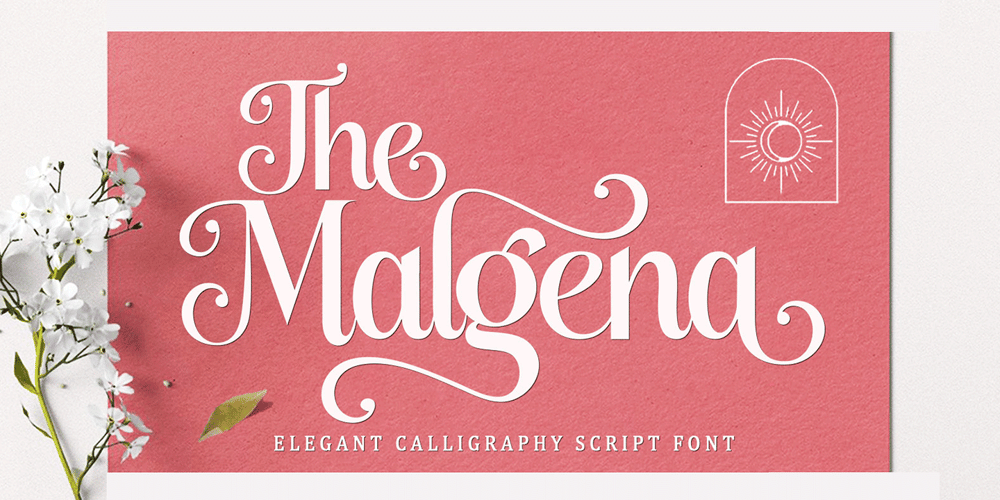
The Malgena
The Malgena font
The Malgena Font Family was designed by Wahi Din and published by Gold Type. The Malgena contains 1 styles and family package options. The Malgena is a modern script font featuring a classic and elegant touch. Malgena is attractive because it is sleek, clean, feminine, sensual, glamorous, simple and very easy to read, thanks to its many beautiful letter joints. I also offer a number of decent stylistic alternatives for some of the letters. Classic style is very suitable to be applied in various formal forms such as invitations, labels, restaurant menus, logos, fashion, make up, stationery, novels, magazines, books, greeting cards / weddings, packaging, labels or all kinds of advertising needs. . . . . .Files included:-The MalgenaContains full set:-Uppercase -Lowercase -Alternative -Ligature -Punctuation -Number -Multilingual support.Need help or have questions let me know. I’m happy to help. Thank you & Congratulations on the Design!